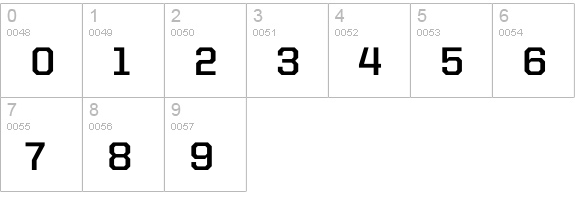
United Sans Reg Bold is a strong, high-contrast variant in the United typeface family \xE2\x80\x94 well suited to headlines, attention-grabbing titles, and strong calls-to-action.
United Sans Reg Bold is a bold and powerful typeface that exudes confidence and strength. Its clean lines and sturdy letterforms make it perfect for headlines, titles, and branding materials. This font instantly grabs attention and demands to be noticed. What sets United Sans Reg Bold apart is not just its striking design, but also the fact that it is freely available for download at FontsMarket.com. This means that designers and enthusiasts alike can access this exceptional font without any cost. Whether you are working on a personal project or a professional assignment, United Sans Reg Bold is a valuable addition to your font library. With its generous x-height and thick strokes, United Sans Reg Bold ensures excellent legibility even at smaller sizes. This makes it ideal for a wide range of applications, from print materials like posters, brochures, and flyers, to digital designs such as websites, social media graphics, and presentations. The bold weight adds a touch of impact and intensity, making your message stand out and leaving a lasting impression on your audience. United Sans Reg Bold is a versatile font that can be used across various design styles and themes. Its timeless appeal and modern sensibility make it suitable for everything from contemporary designs to more classic and elegant layouts. Whether you are designing for a corporate brand, a fashion label, or a tech startup, United Sans Reg Bold has the versatility to adapt to any project. So why wait? Take advantage of the opportunity to download United Sans Reg Bold for free at FontsMarket.com. Add this remarkable font to your collection and explore its endless possibilities. Let United Sans Reg Bold elevate your designs and help you create impactful and memorable visuals.